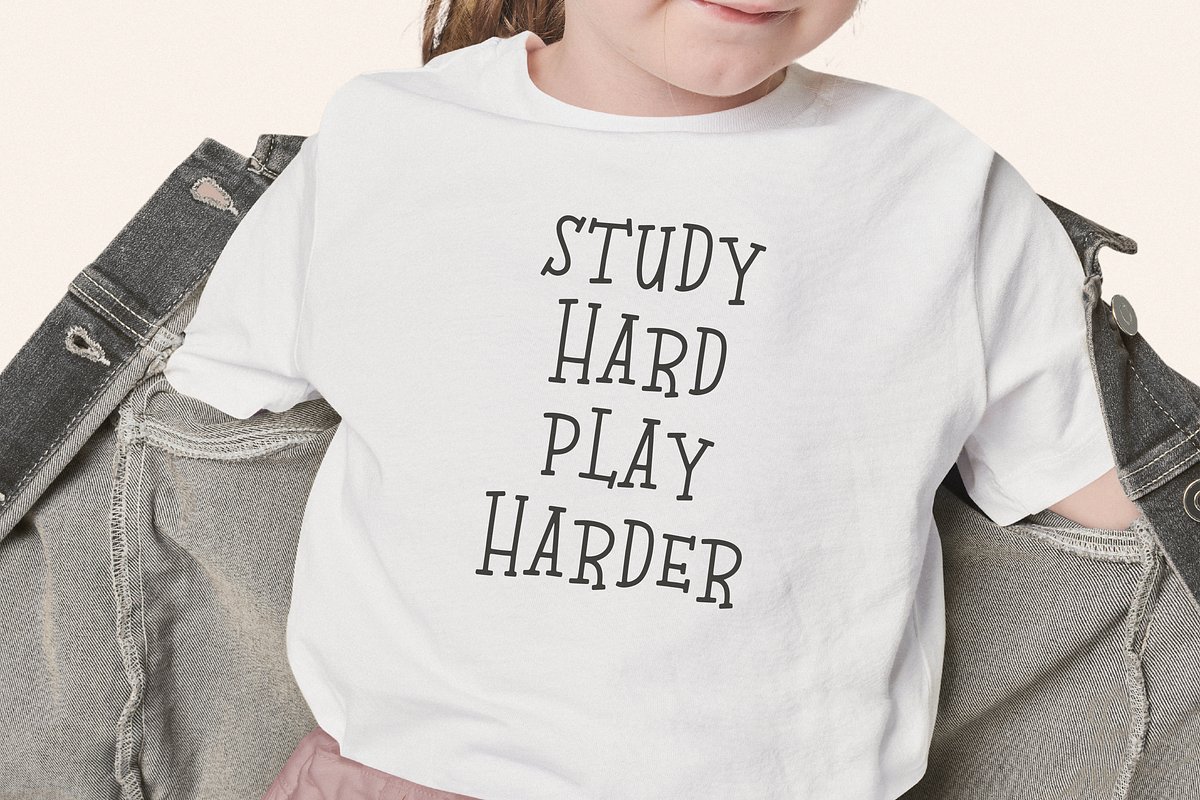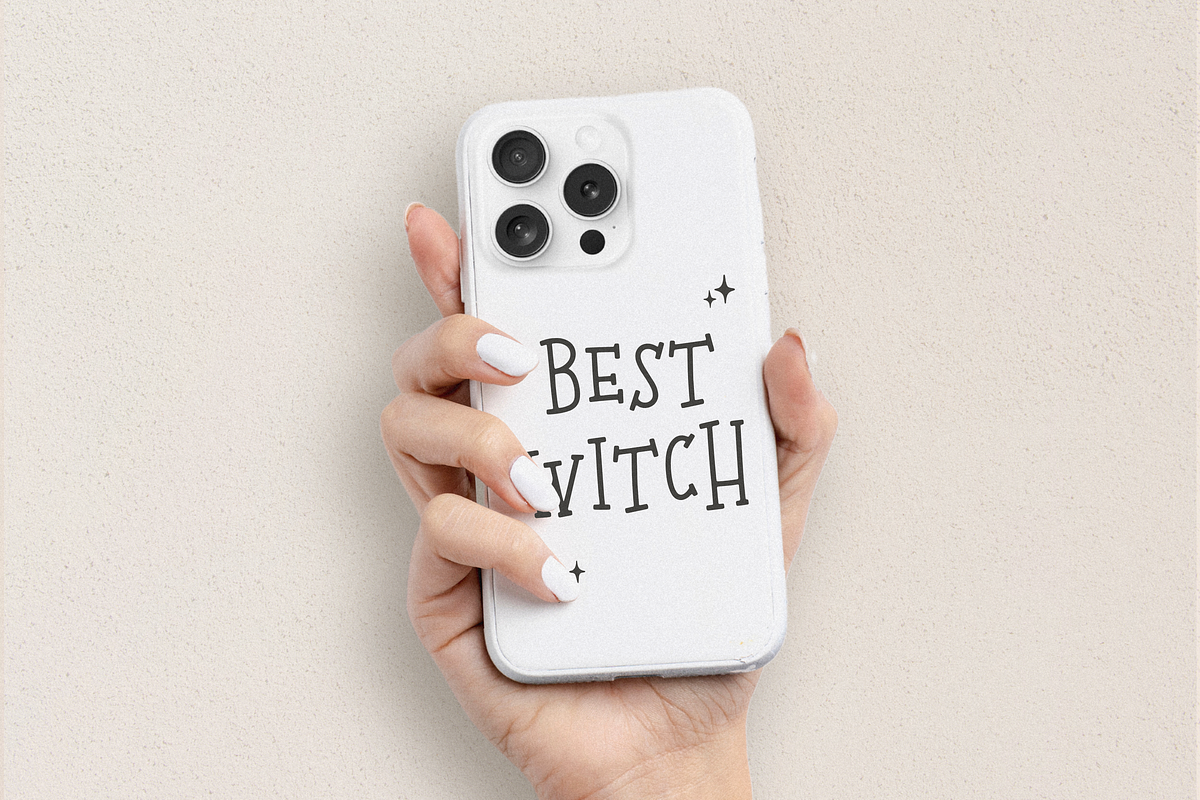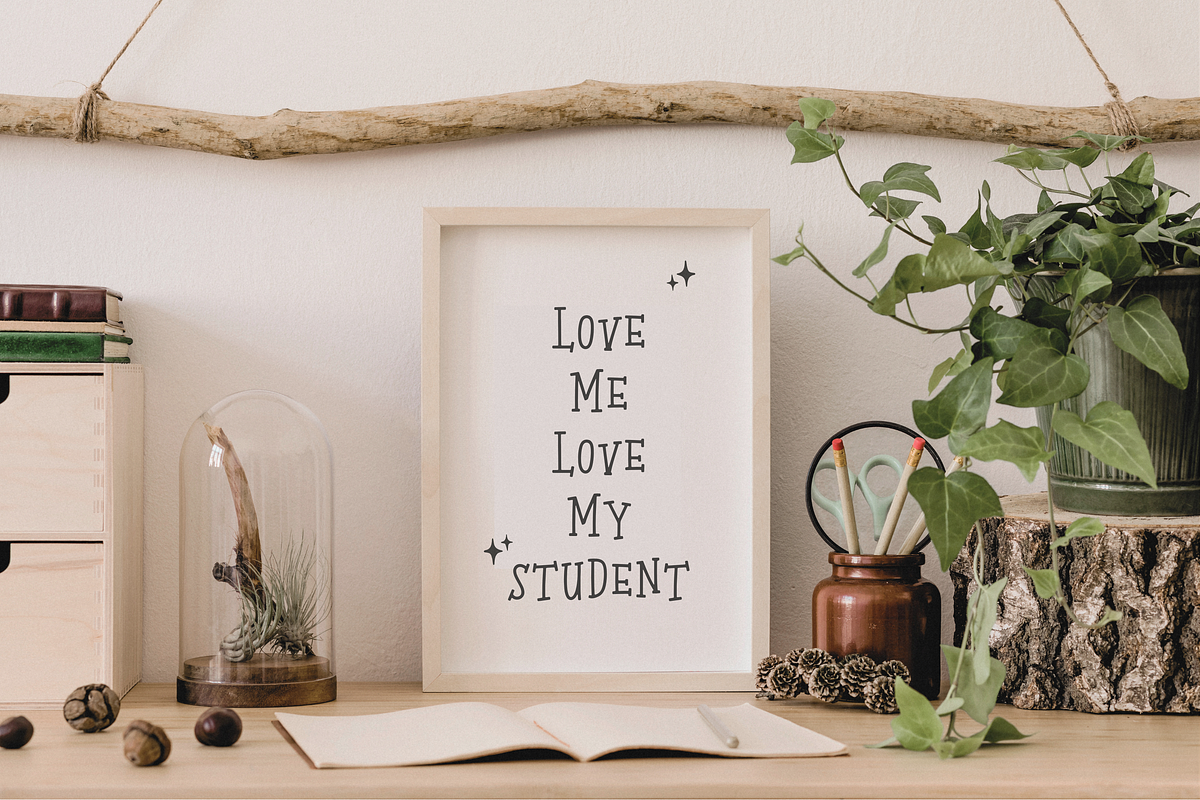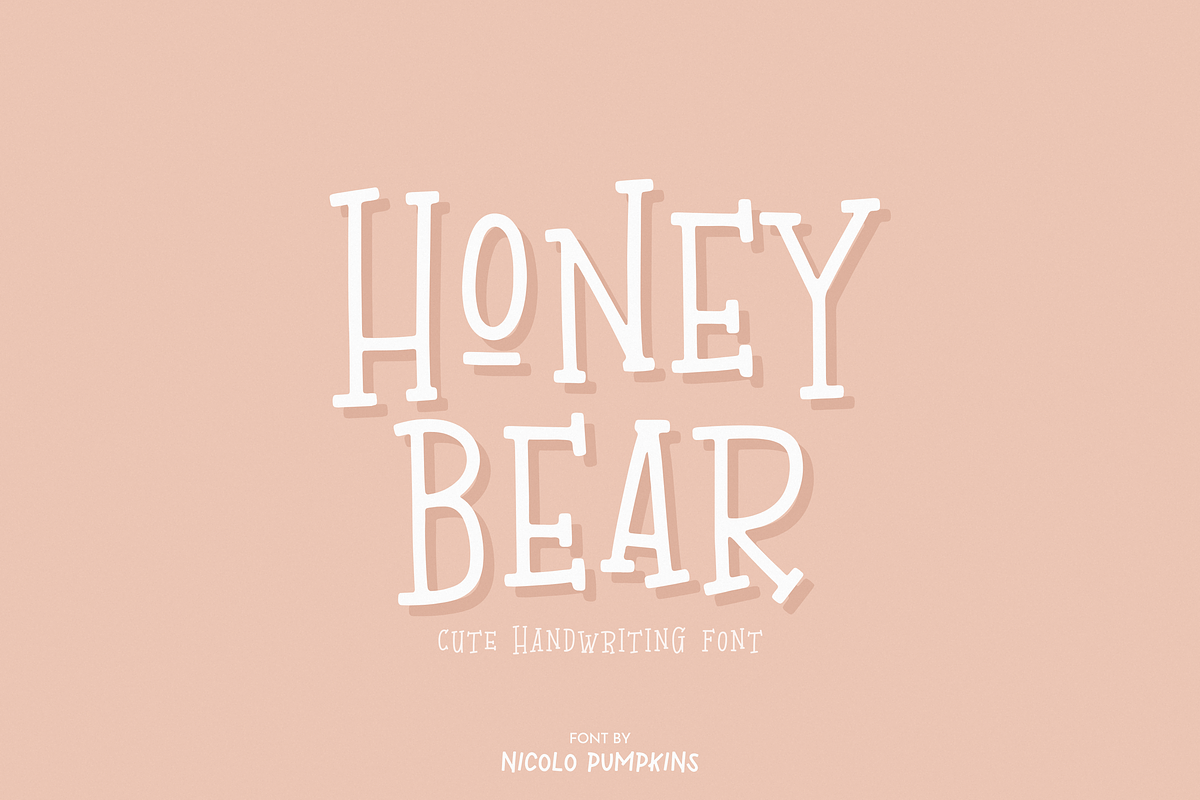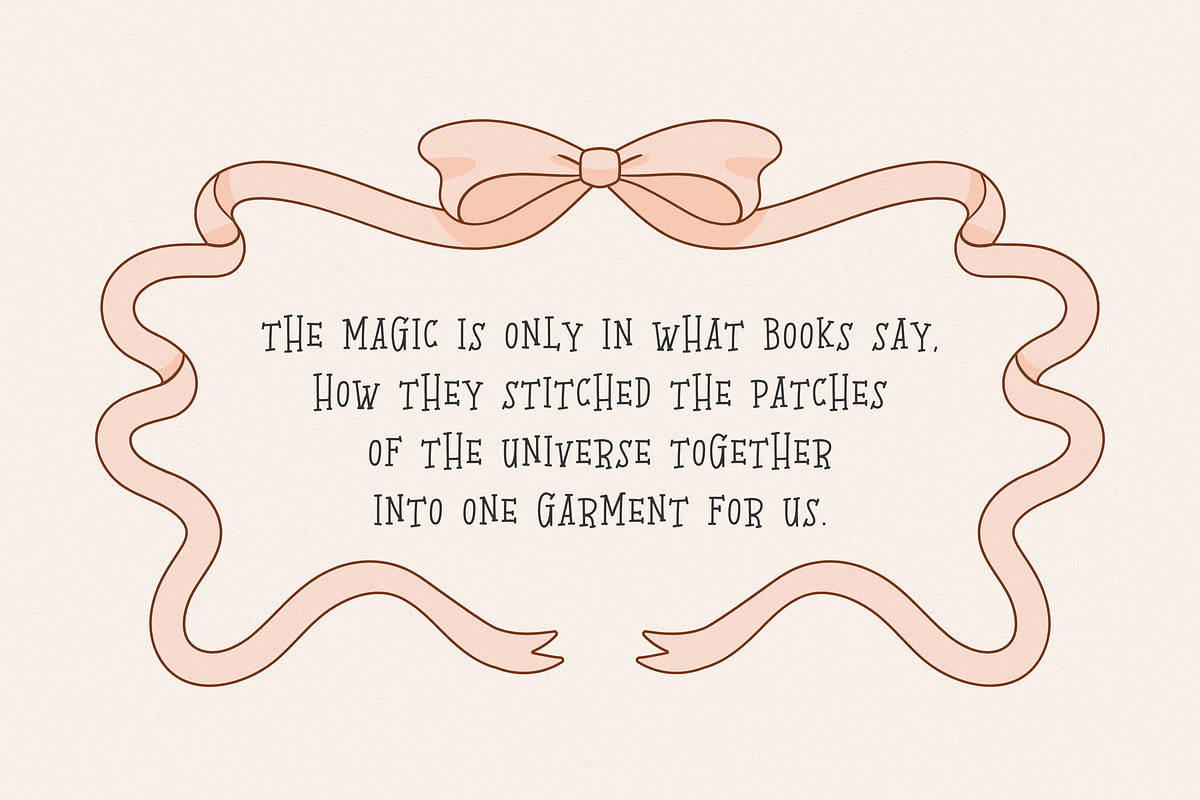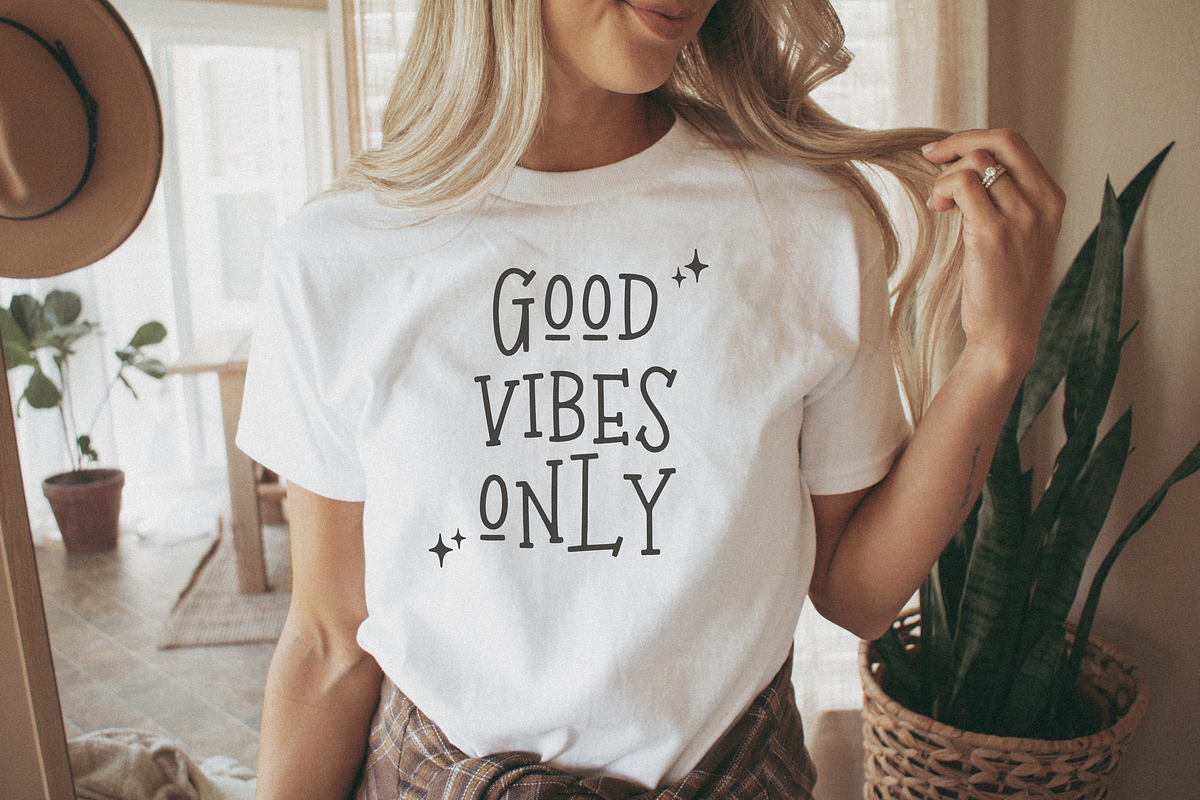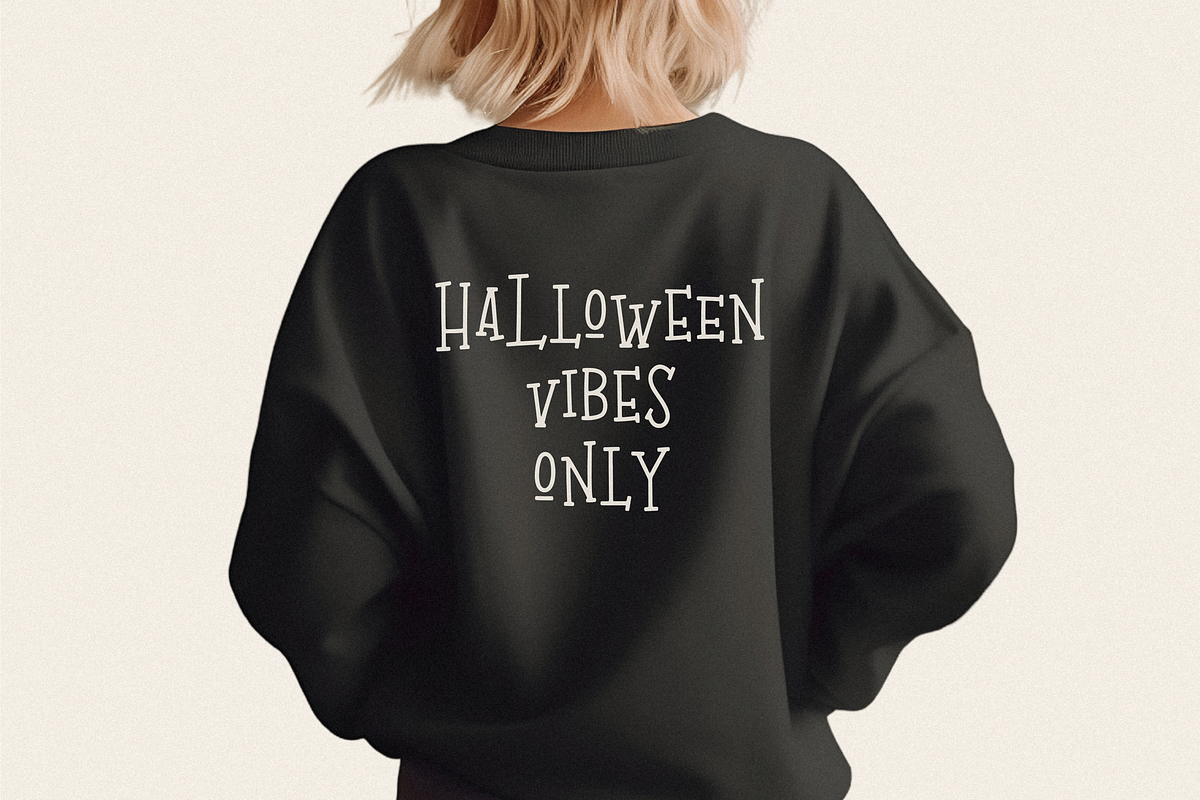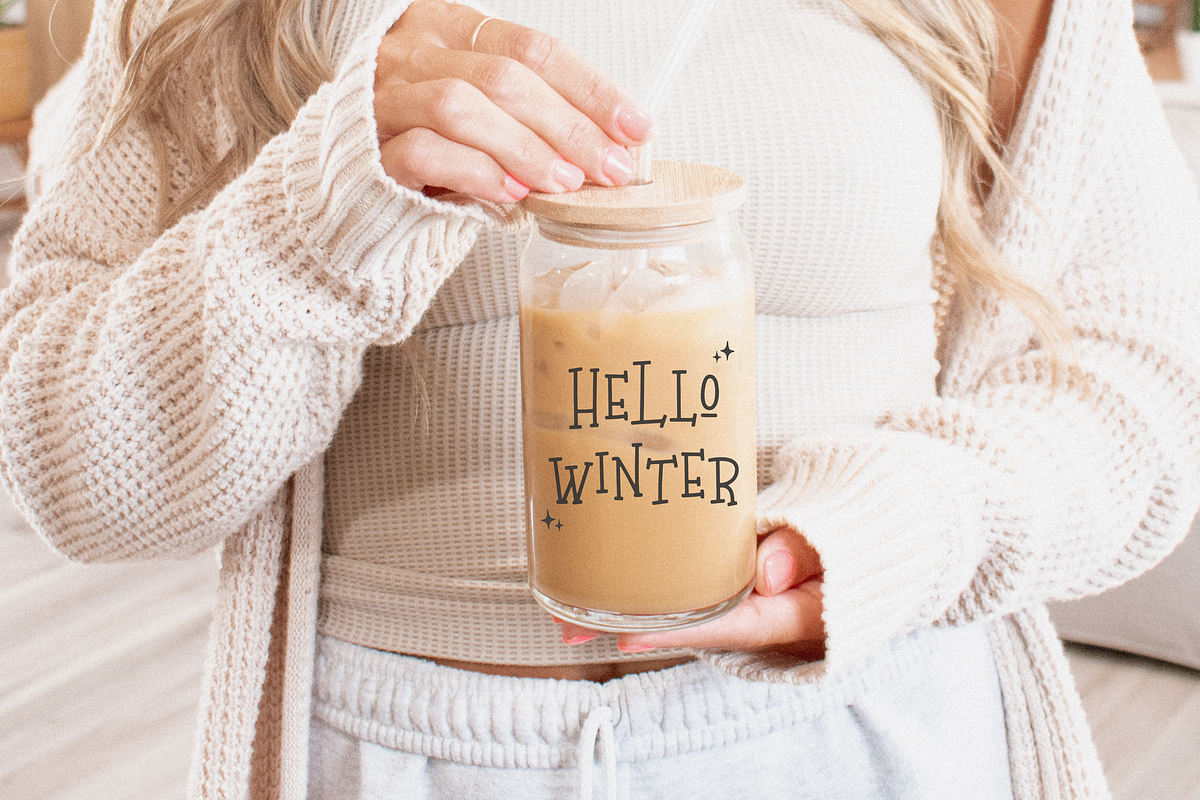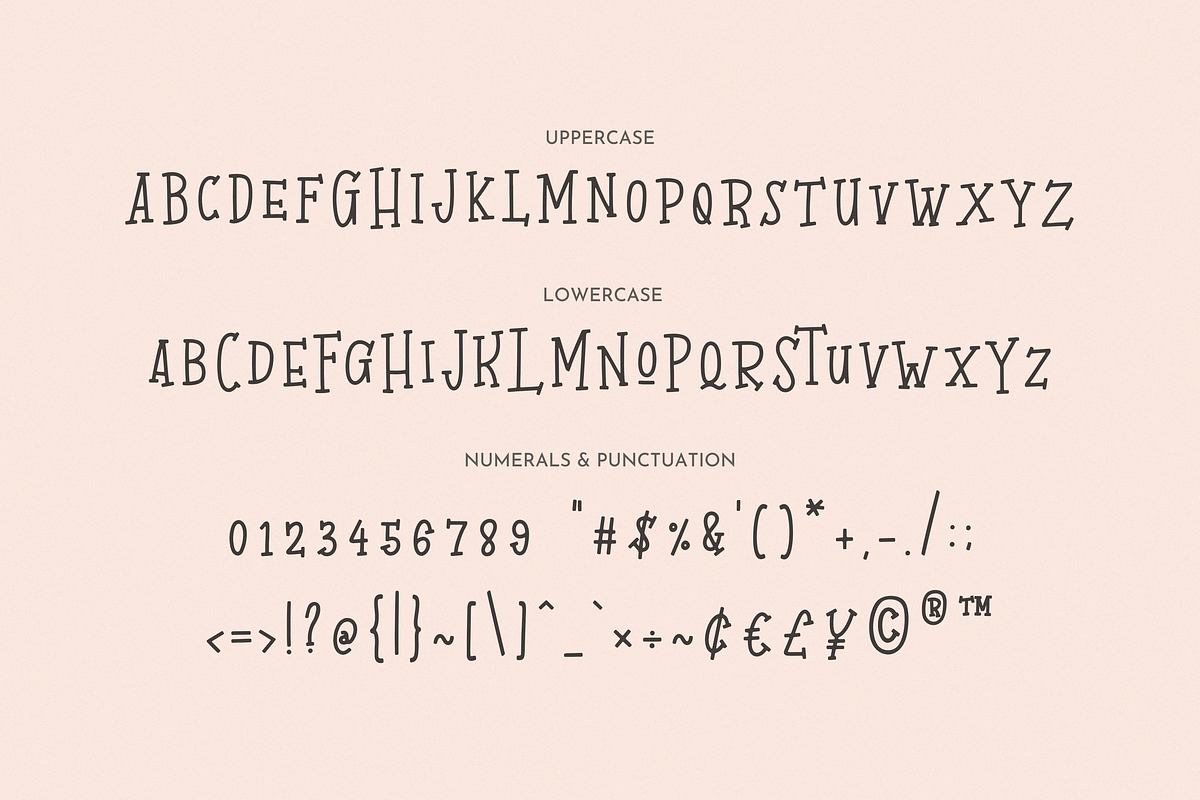
Honey Bear Font
Honey Bear FONT A cute serif handwritten font with Halloween style. (All Capital Letter)
✦ Honey Bear FONT is perfect for Halloween or cute and playful crafts and products such as shirts, mugs, logos, wedding invitations, posters, greeting cards, social media, branding, Procreate, Cricut, and more!